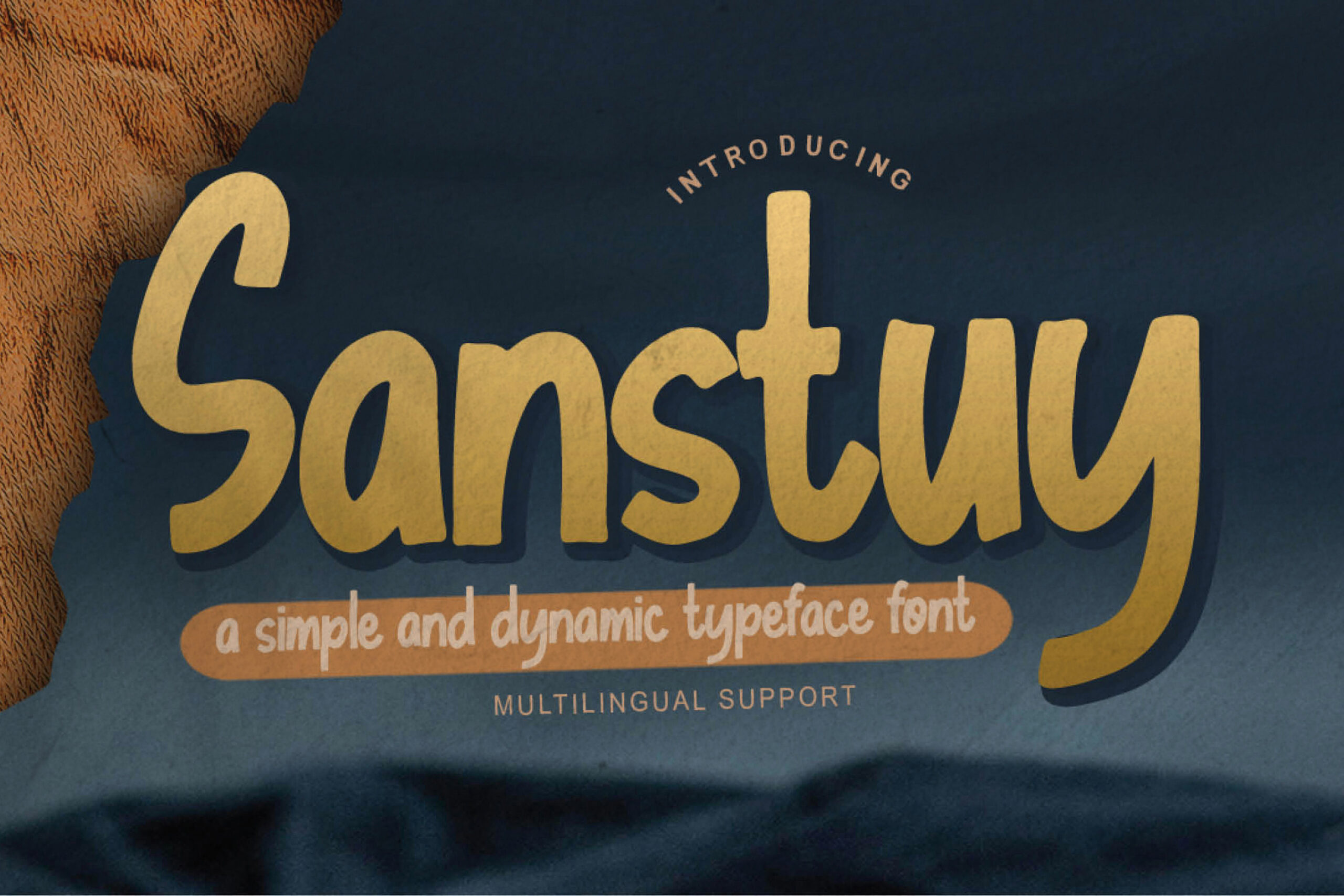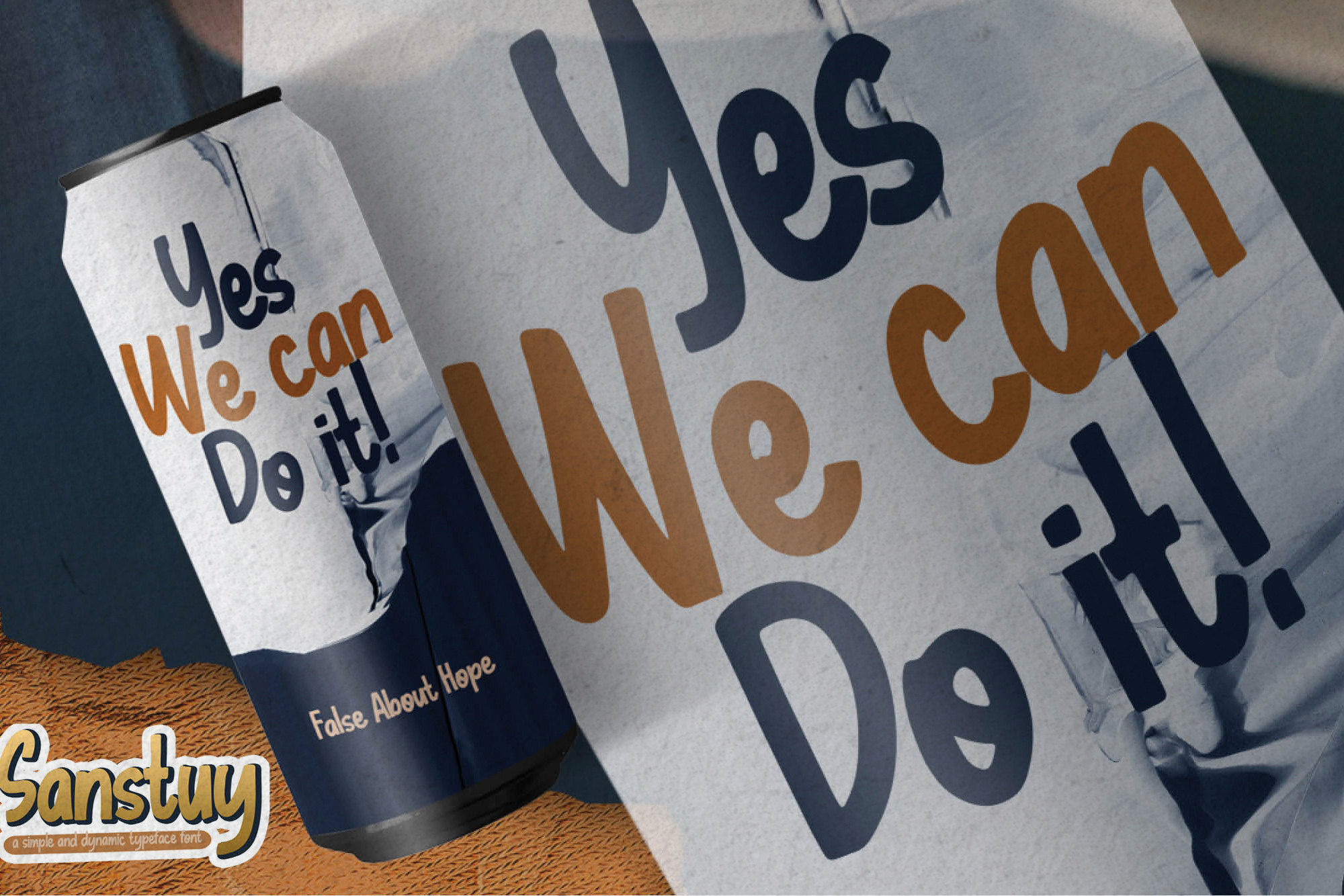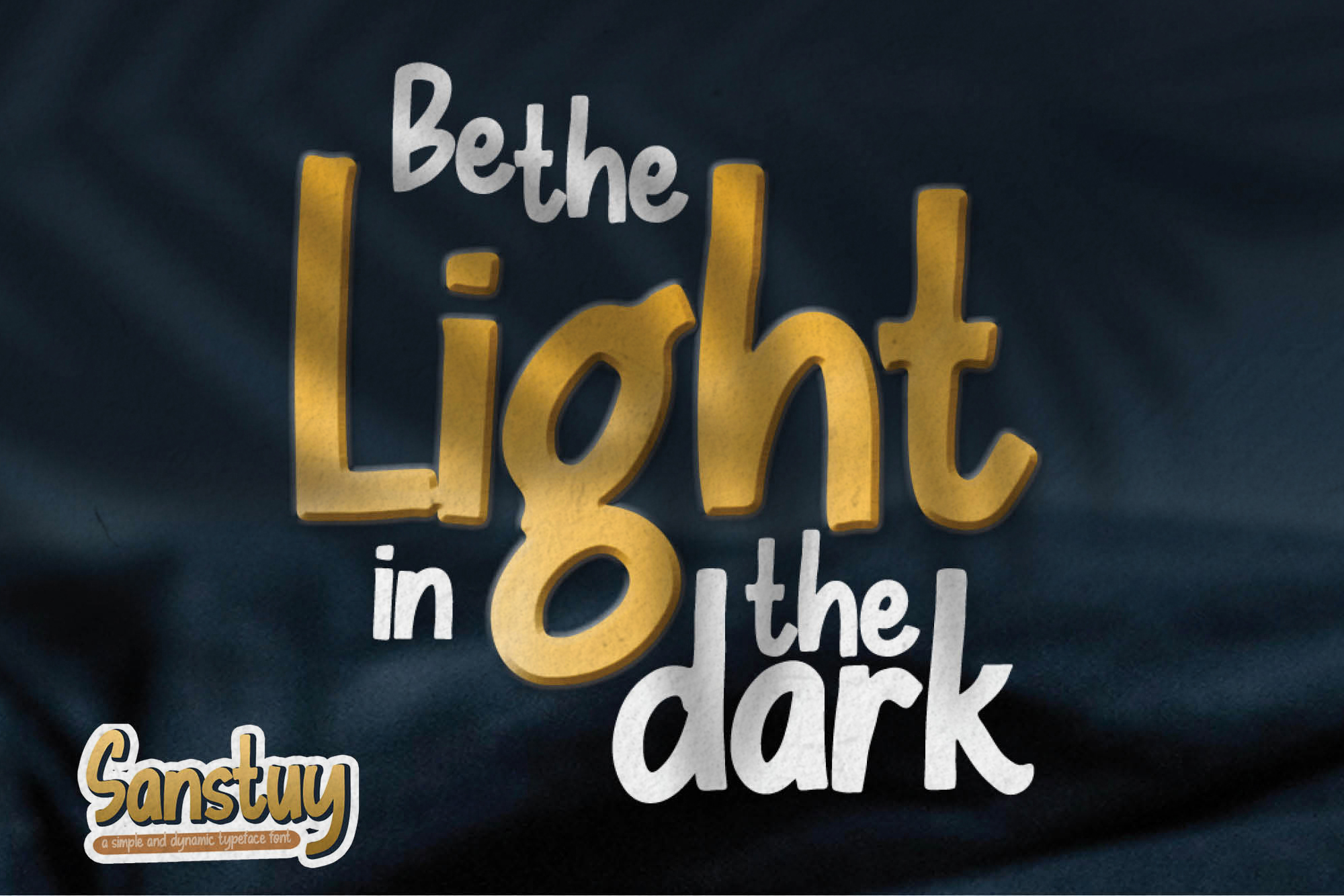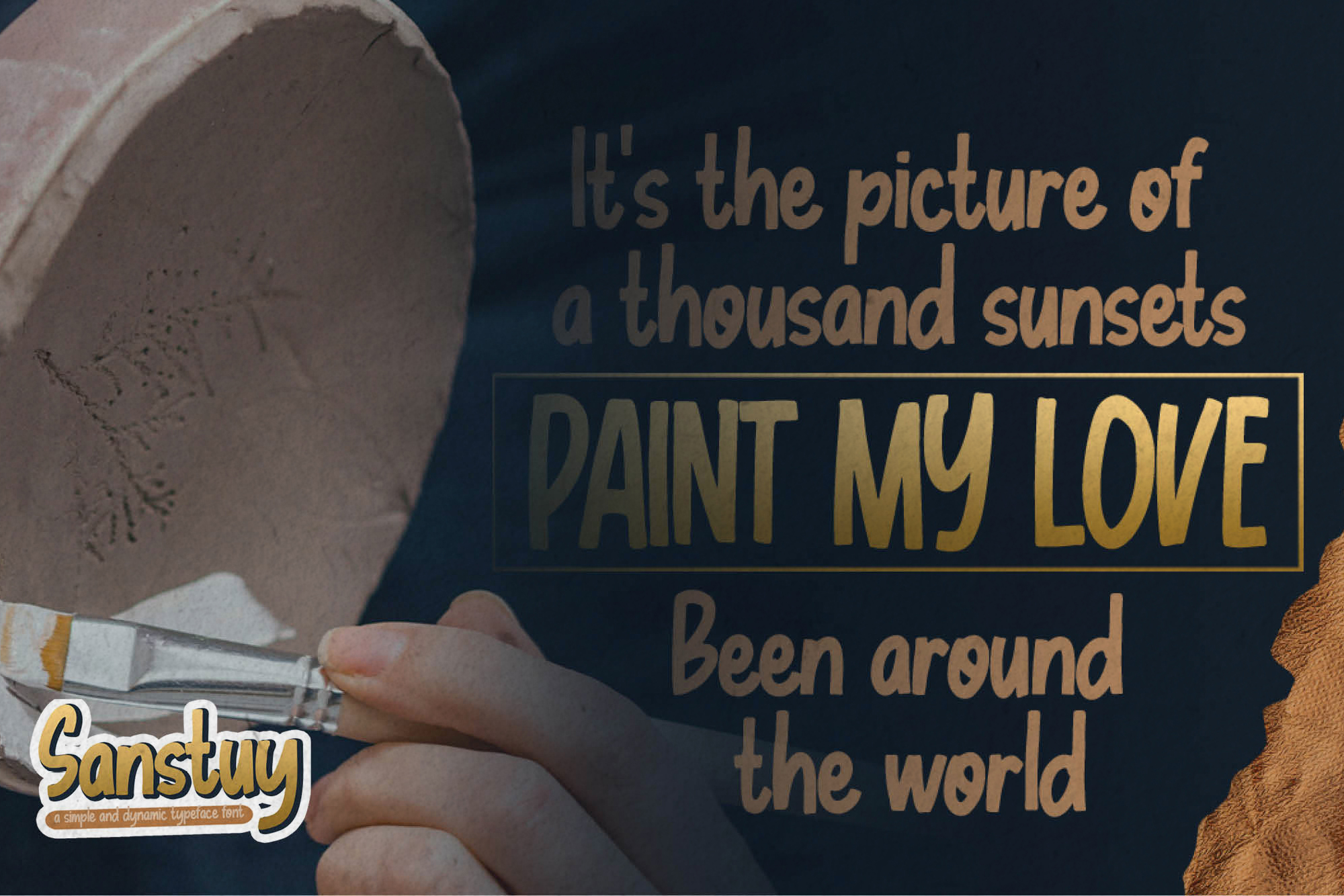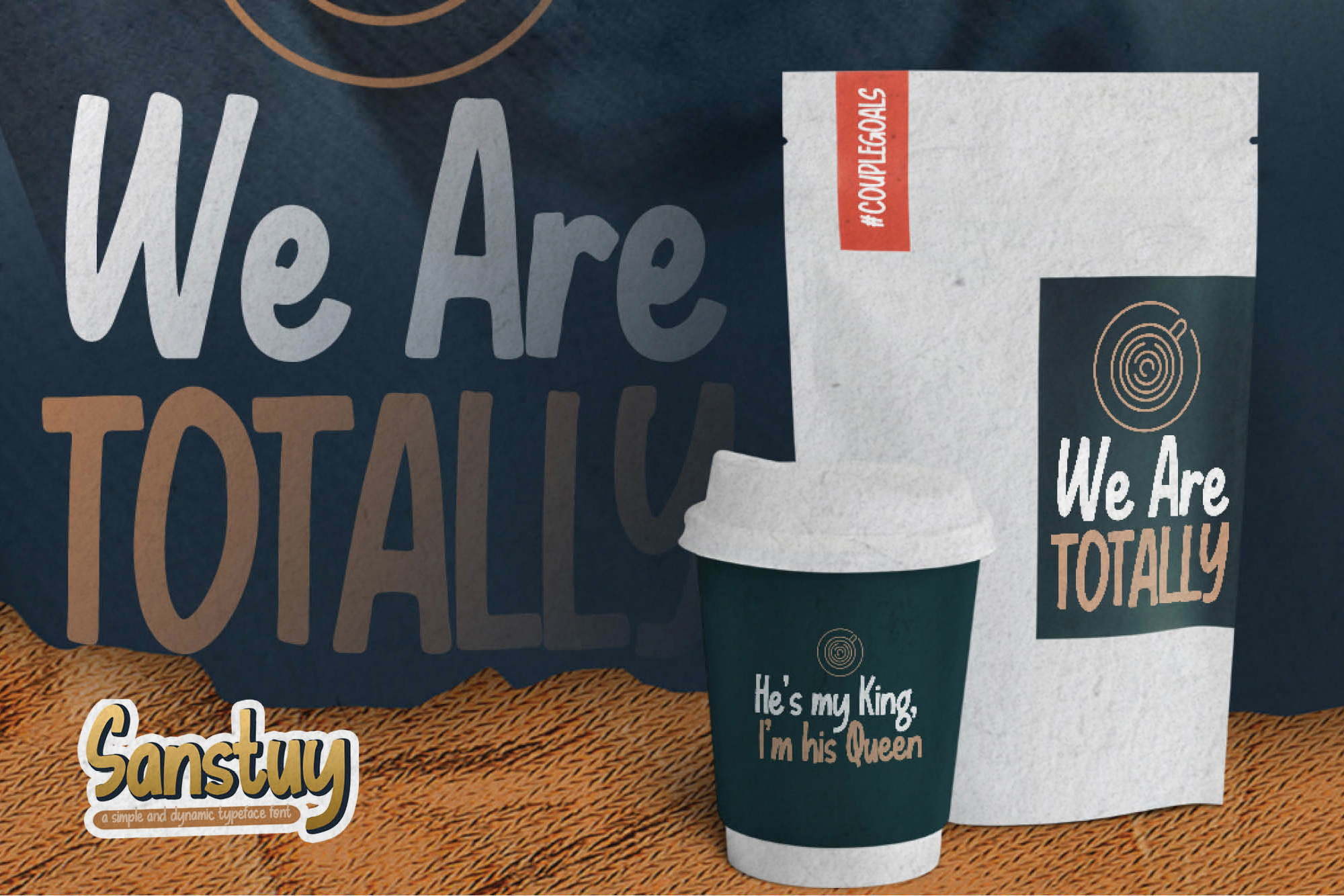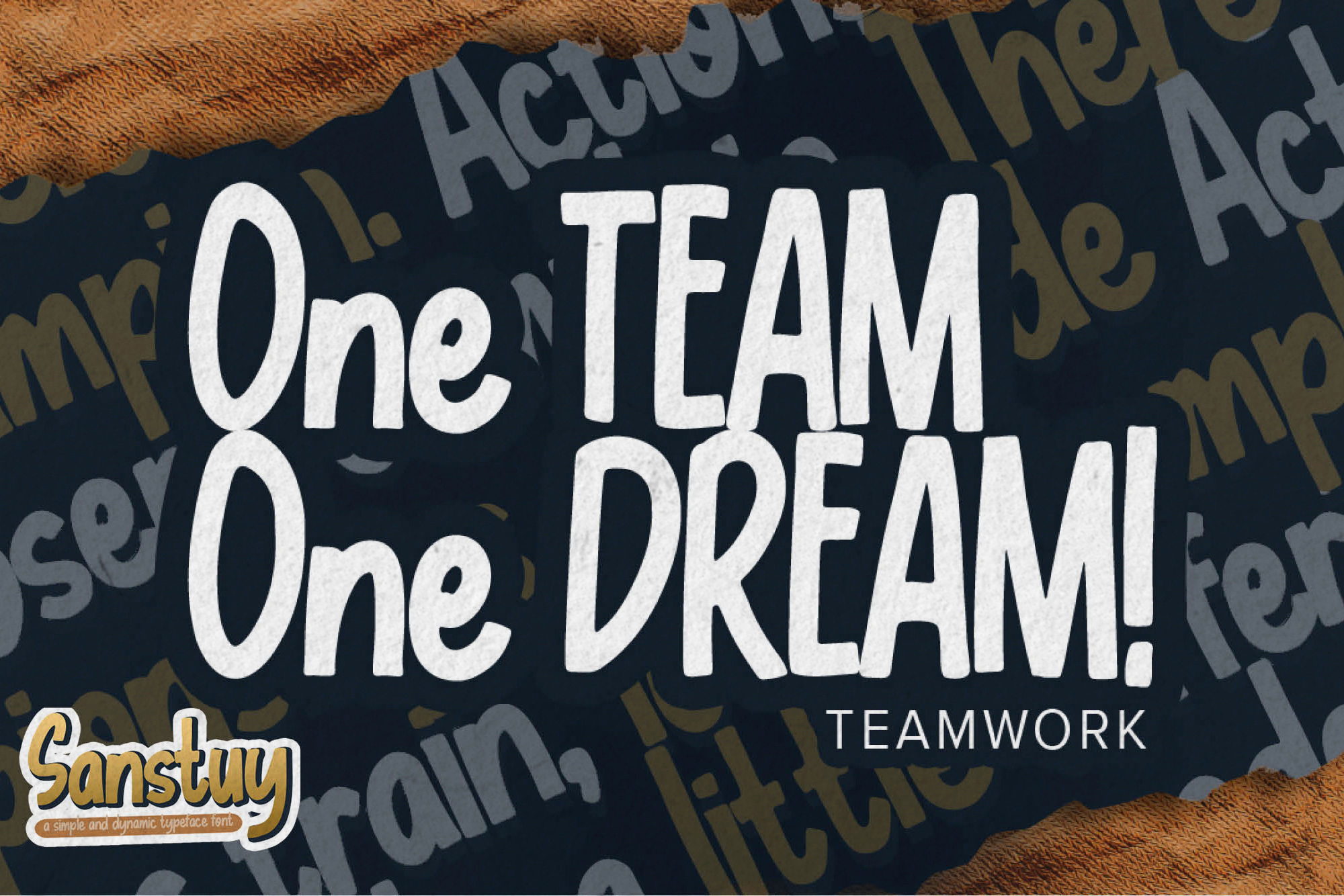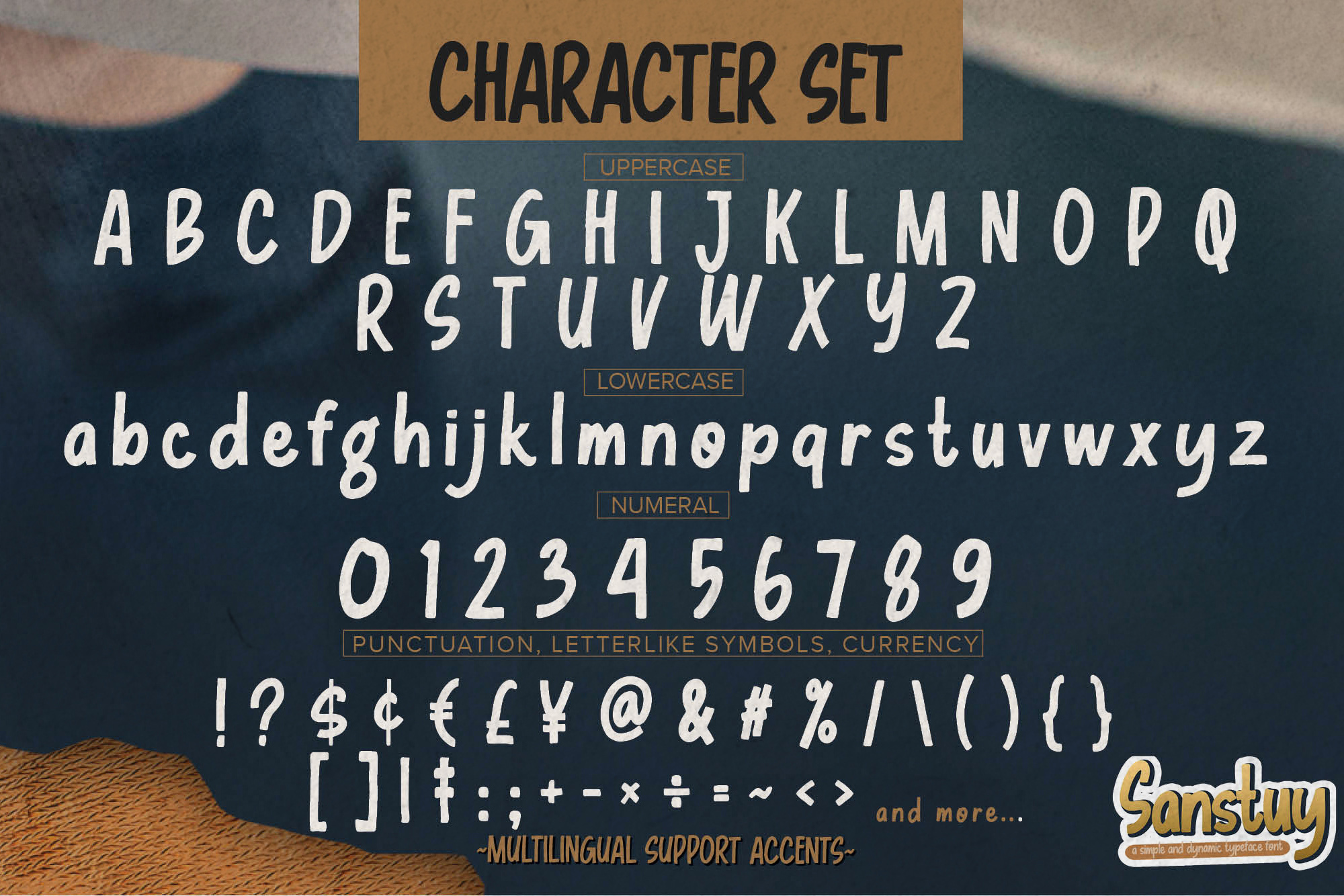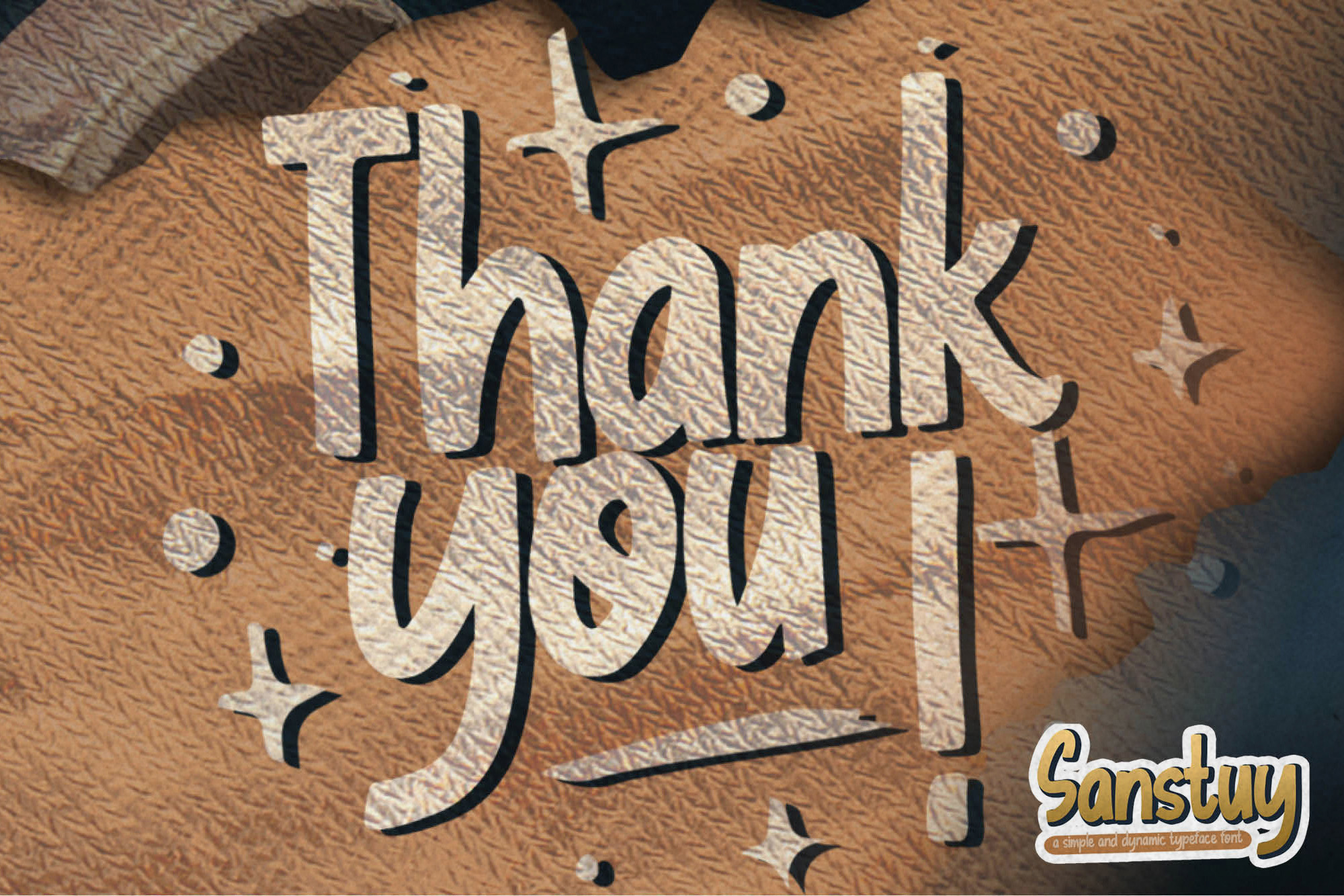
Sanstuy – A Simple and Dynamic Typeface Font, modern style and dramatic movement that is written casually and quickly.
The best for labels,poster,project , designs look modern, authentic and unique. It’s perfect for labels, quotes, posters, DIY projects, branding, packaging, greeting cards, websites, photography overlays, signs, scrapbooking, tags and so much more! That is why Sanstuy has a textured, and unique characteristic more natural look.